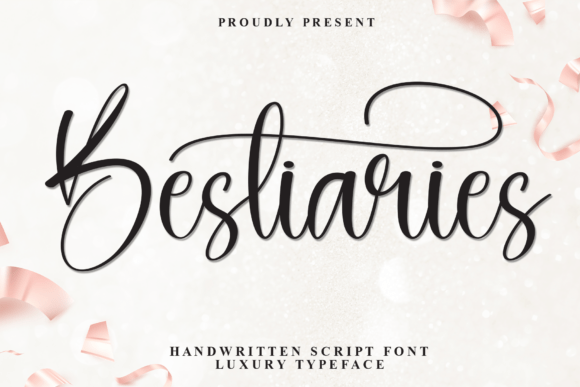
The Magic of Bestiaries Font: A Designer’s New Best Friend
I’ll never forget the time I was working on a wedding invitation project, and my client asked for a font that was both elegant and playful. I scoured the internet, tried out dozens of fonts, but nothing seemed quite right. That was until I stumbled upon Bestiaries Font. With its flowing curves and natural rhythm, it added a personal touch to the invitation that made it truly special. In this article, I’ll share my love for Bestiaries Font, its features, and how to make the most of it in your designs.
An Honest Review of Bestiaries Font
- ✨ Elegant and playful strokes that add a personal touch to any project
- ✅ Flowing curves and natural rhythm that make it a joy to read
- 💫 Perfect for invitations, branding, and social media
- 🎨 Great for creative projects that need a touch of sophistication and warmth
While Bestiaries Font is an amazing addition to any design project, there are a few things to keep in mind:
- ⚠️ Some letters may require manual kerning for optimal spacing
- 🤔 Limited availability of certain OpenType features in certain software
The Story Behind Bestiaries Font
Bestiaries Font was designed with the intention of capturing the elegance and playfulness of handwritten script fonts. The designer, inspired by medieval bestiaries and the art of lettering, aimed to create a font that would bring warmth and sophistication to any project. With its flowing curves and natural rhythm, Bestiaries Font is a testament to the beauty of handwritten typography.
Q: What is the best way to use Bestiaries Font in my designs?
A: Bestiaries Font is versatile and can be used in a variety of projects, from invitations and branding to social media and creative projects. Experiment with different font sizes, colors, and styles to find the perfect look for your project.
Q: Is Bestiaries Font suitable for body text?
A: While Bestiaries Font is beautiful and elegant, it’s best suited for headings and titles. For body text, a clearer, more legible font may be more suitable.